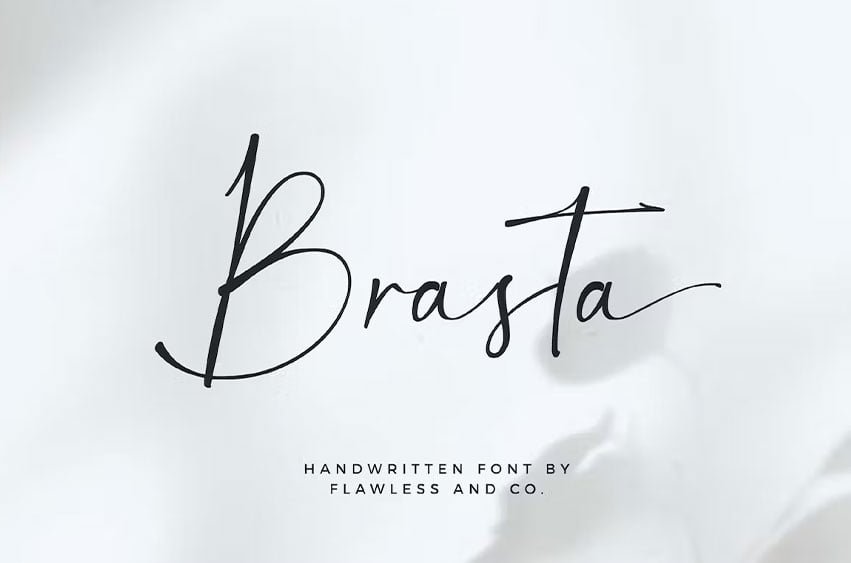
Brasta Font Handwritten Script Font, Modern Font, Canva Font, Modern Calligraphy, Wedding Font, Crafted Font. Brasta is a beautiful script handwritten font that exudes sweetness and girly charm designed by Flawless and co, this style gives a feel of modern.